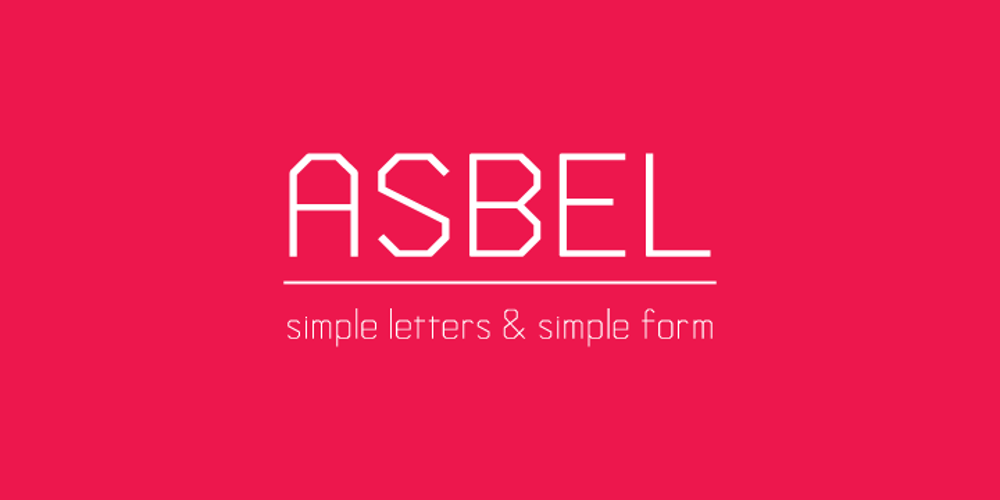
Asbel Font Family was designed by published by Khaito Gengo. Asbel contains 9 styles and family package options. Asbel is a simplistic, stylish, modern and rectangular san serif type font, and type family consisting of 9 fonts. The main purpose of creating this font was to be as simple as possible. As a result, Asbel is good to use for titling, poster, Advertising etc. Asbel also features standard ligature, stylistic alternates, and fractions.